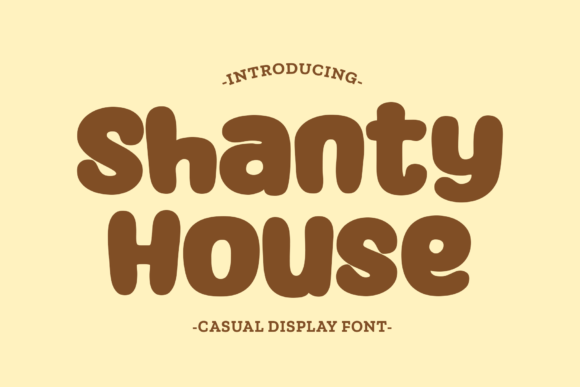
Journey into the world of comics with Shanty House Font, a spirited and playful display font crafted by the talented nhfonts. This remarkable font exudes an irresistible charm, captivating the hearts of comic enthusiasts worldwide. Dive into the enchanting realm of storytelling, where imaginations run wild and characters come alive. With Shanty House Font, your comics will leap off the page and transport readers into a world of boundless creativity.
Unleash your inner child and let your imagination soar with this captivating font. Express your unique artistic vision and breathe life into your characters like never before. Every stroke and curve of Shanty House Font is meticulously designed to evoke a sense of wonder, bringing your stories to life with a vibrant and engaging touch.
Step into the spotlight and let Shanty House Font take center stage. Its bold and quirky personality commands attention, making it the perfect choice for creating eye-catching headlines, logos, and posters that demand to be seen. Impress your audience with your distinctive style and leave a lasting impression that will keep them coming back for more.
Whether you're a seasoned comic book artist or just starting your creative journey, Shanty House Font is your ultimate companion. Its versatility knows no bounds, effortlessly adapting to a myriad of design projects. From playful illustrations to whimsical invitations, this font adds a touch of magic to any creation. Experience the transformative power of Shanty House Font and let your creativity flourish.
Join the ranks of countless satisfied users who have discovered the magic of Shanty House Font. Embrace the endless possibilities and elevate your storytelling to new heights. With this remarkable font by your side, you'll unlock a world of captivating narratives, unforgettable characters, and boundless imagination.